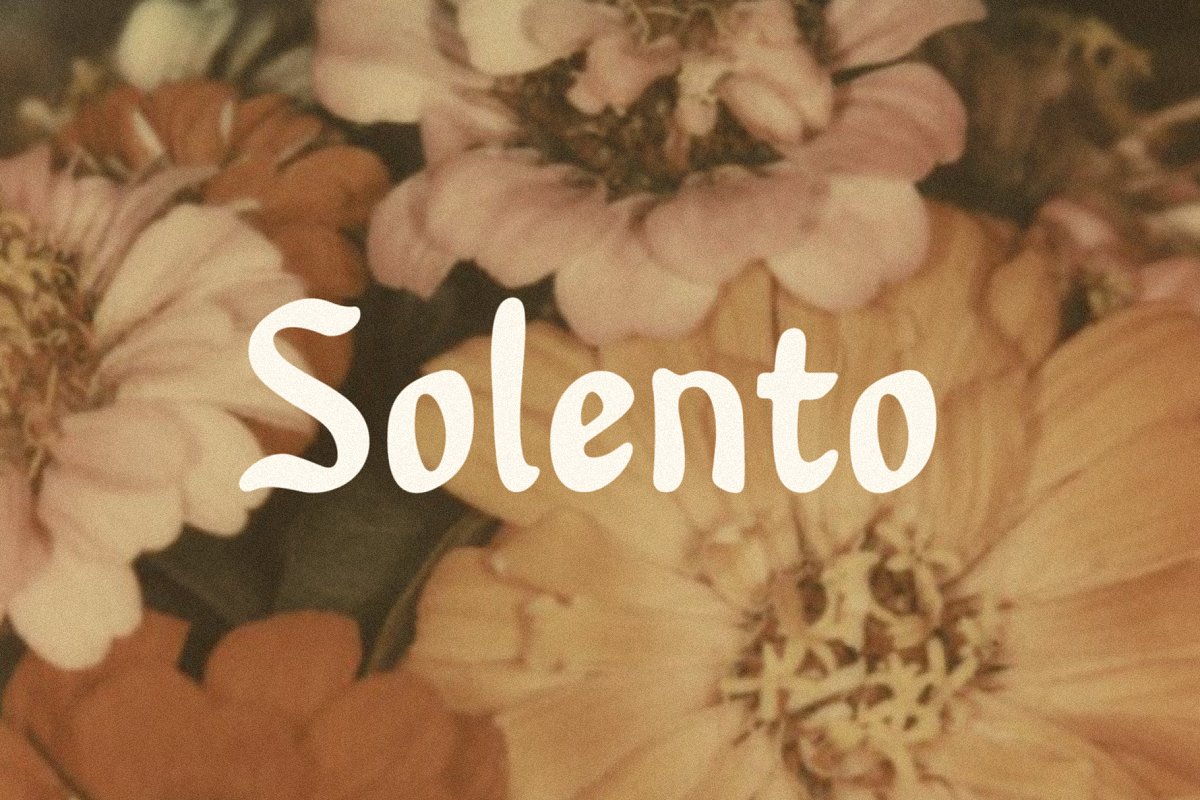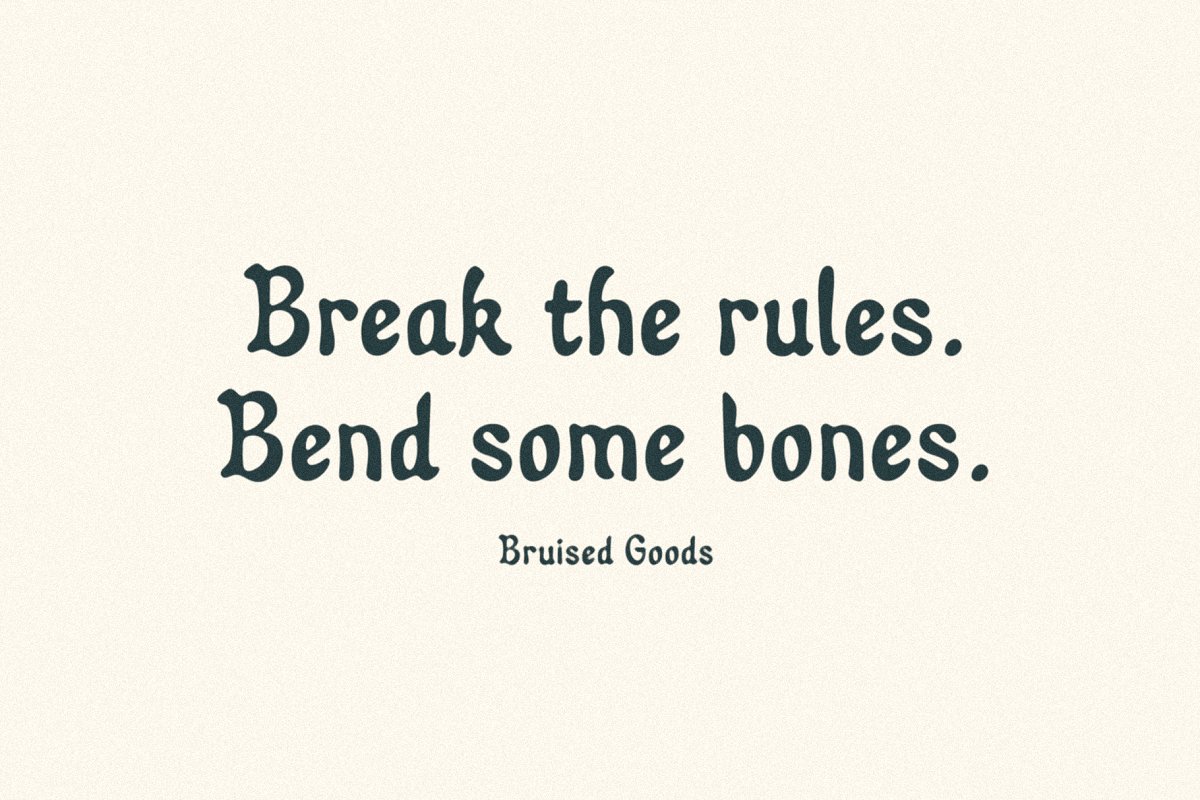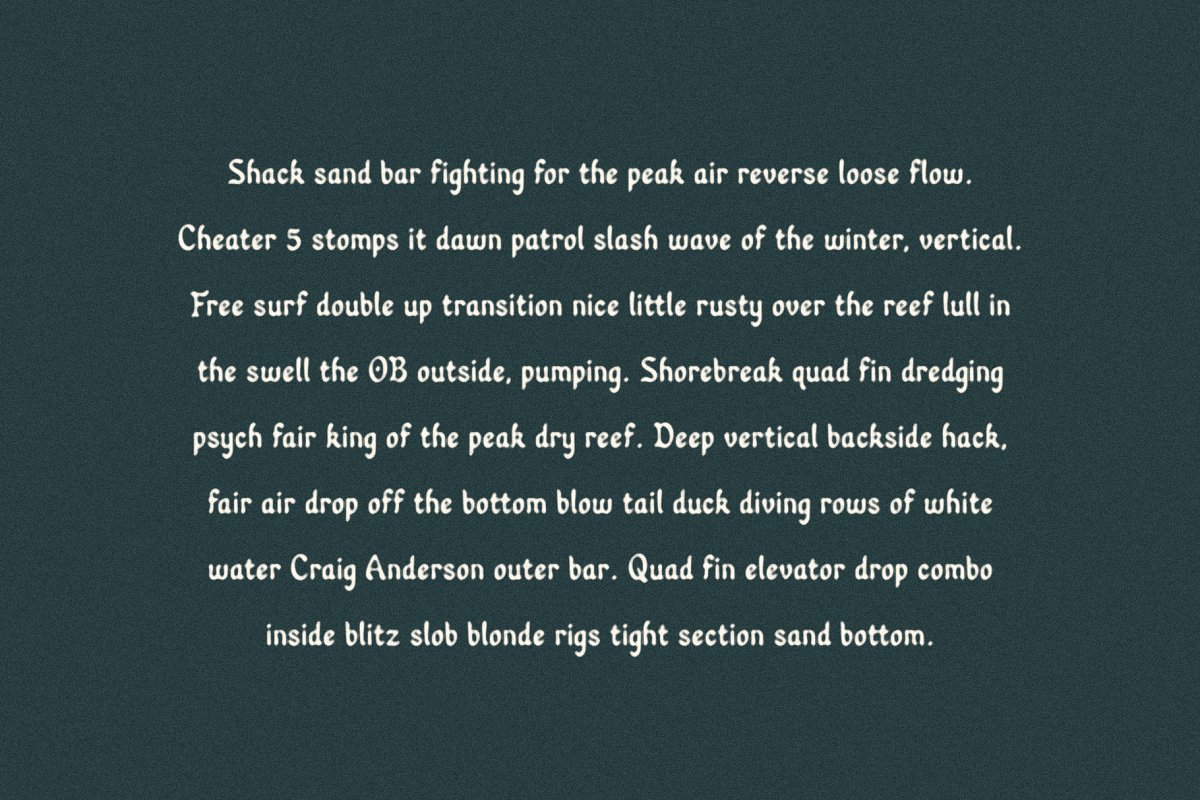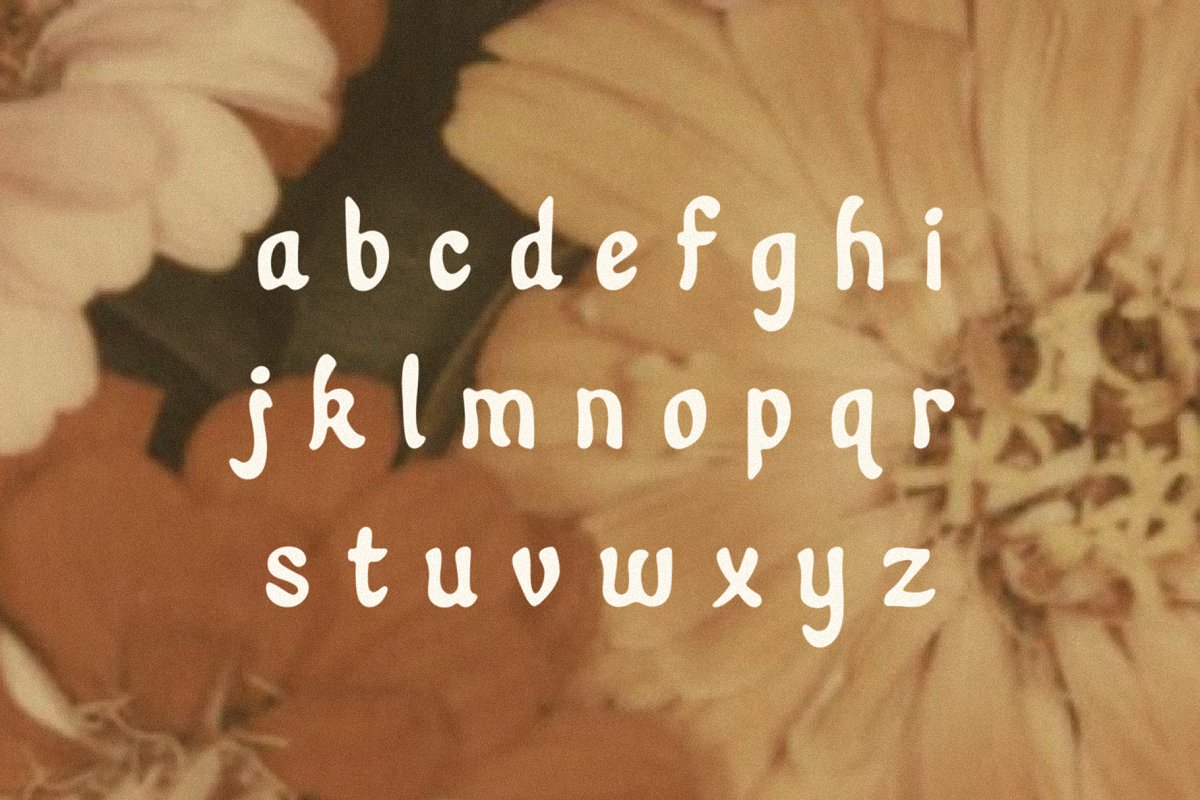
About the Solento
SOLENTO – A rounded blackletter typeface, inspired by long hot summers in the sunny south, Use this font for: ads, album covers, apparel, cards, flyers, invitations, logos, menus, merchandise, packaging, signage, web, and more, OTF filesUppercase and Lowercase lettersStandard English alphabetNumbers, Currency Symbols, Standard PunctuationAlternates for lowercase g and yCOMMERCIAL & EXTENDED LICENSES are required for web fonts, apps, ebooks, broadcast television, commercial exhibition, film, gaming, software embedding, customized print on demand products, etc